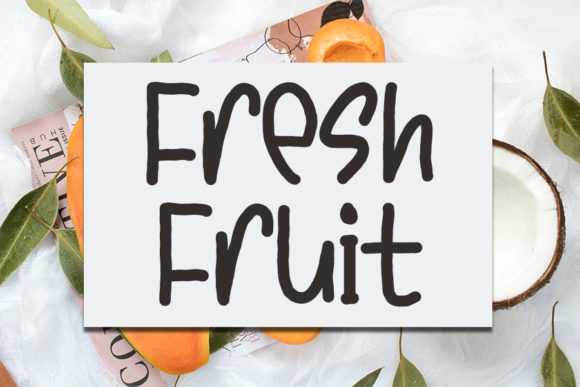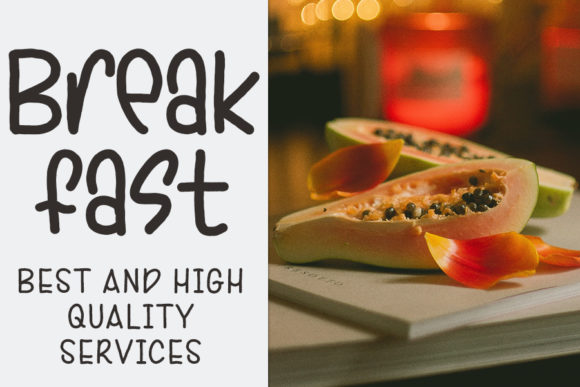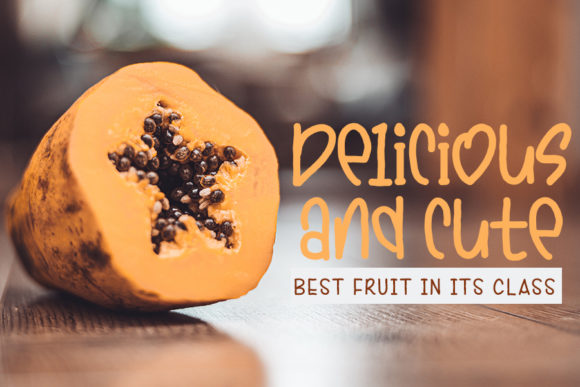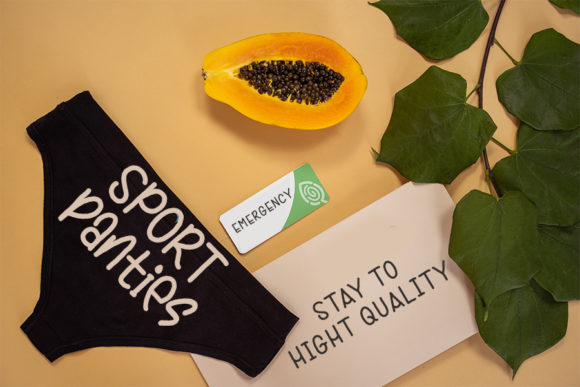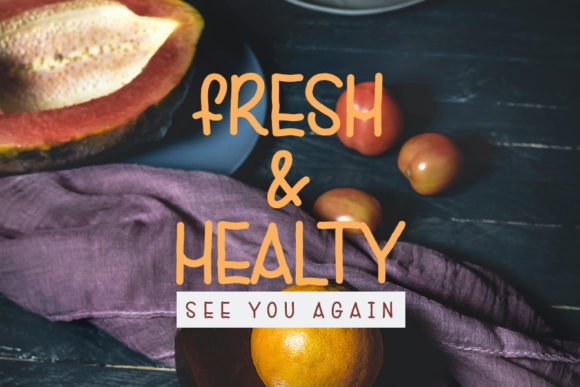
Papaya Pakpaw Font – Free Download
Introduction to Papaya Pakpaw Font
PaPaya Pakpaw is a modern and fresh handwritten font.
| 👤 Author | FL Space |
Incredibly versatile, this font fits a wide pool of designs, elevating them to the highest levels Add this font to your favorite creative ideas and notice how it makes them come alive.
Key Features of Papaya Pakpaw Font
Why Choose Papaya Pakpaw Font?